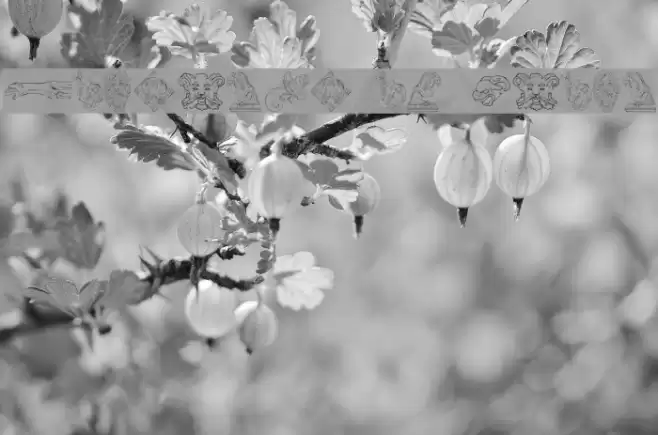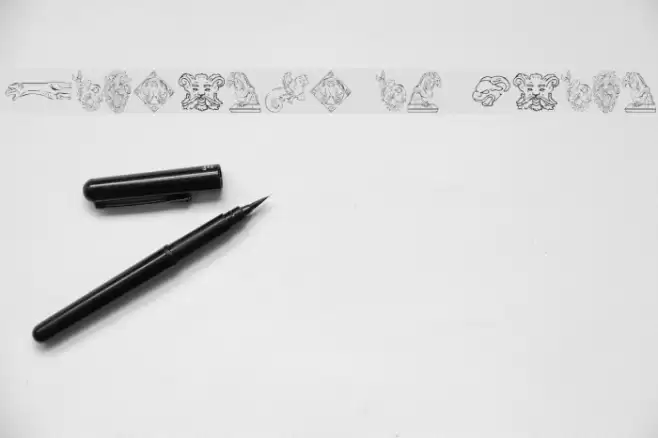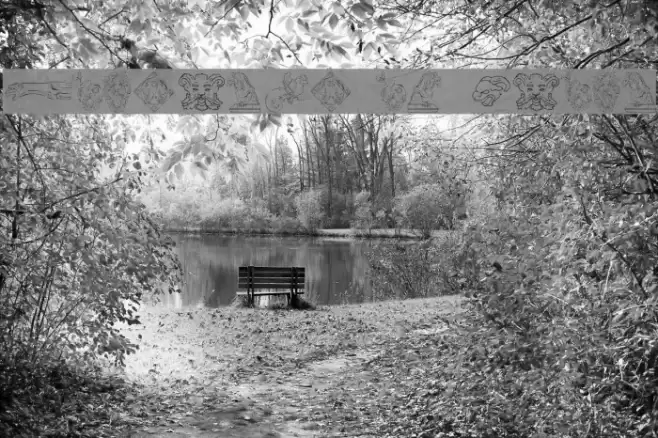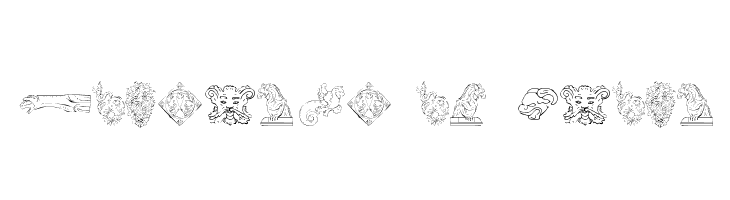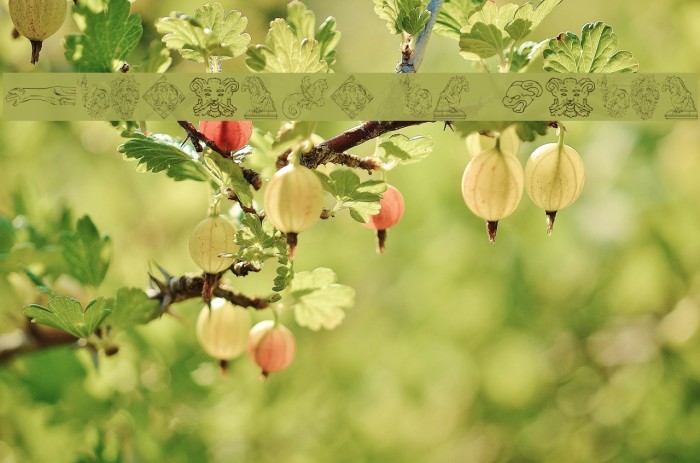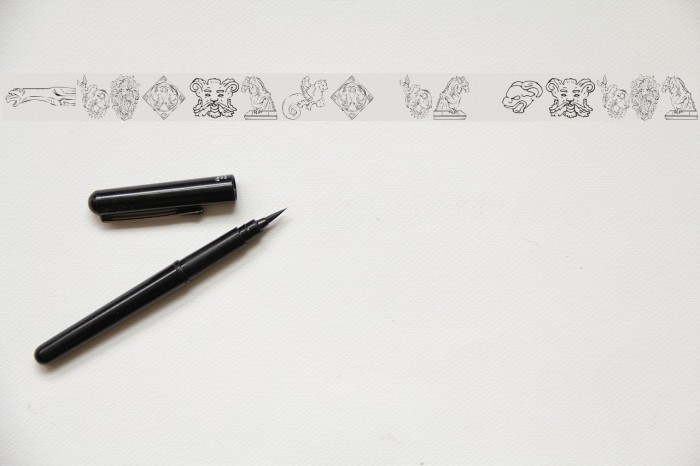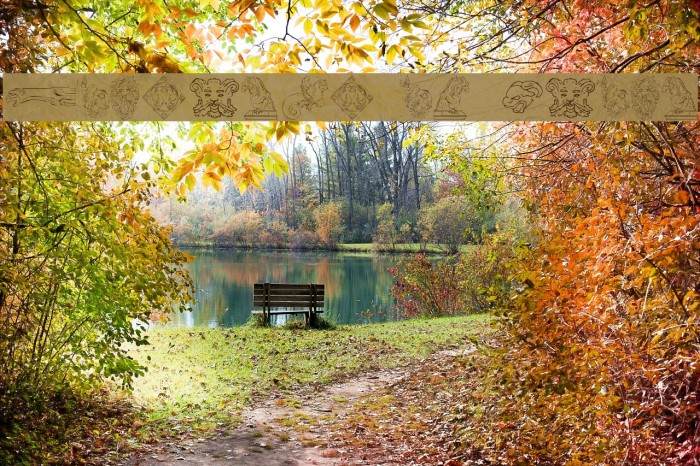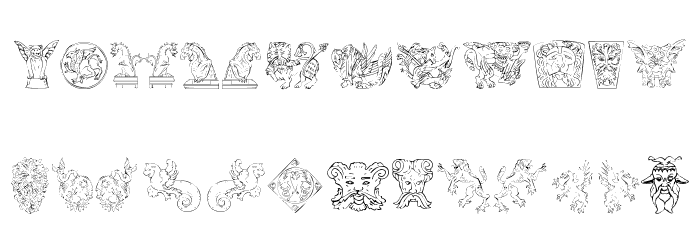
Monsters of Stone Font
Monsters of Stone Description
A highly decorative and illustrative font featuring intricate line art of mythical creatures, gargoyles, and stone carvings, reminiscent of architectural ornaments and medieval motifs. Each character is represented by a unique, detailed drawing rather than a traditional letterform.
Ornate, mythical, and architectural illustration-based font from Dingbats fonts.
- Proposed Projects: Fantasy book covers, themed event posters, RPG materials, gothic branding, decorative headings.
- Overall Style: Decorative, Gothic, Fantasy
- Use Case: Logos, Headlines, Posters, Themed Graphics